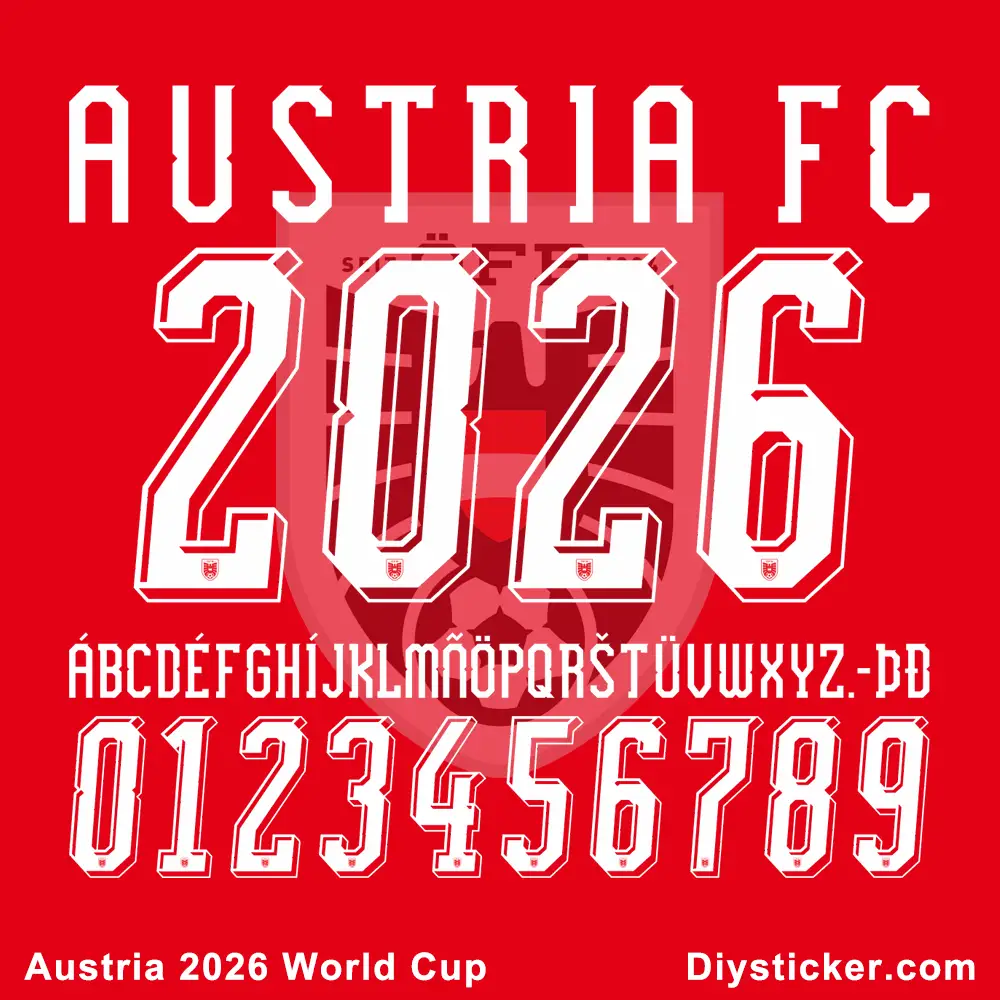
Introducing the exclusive, first-to-market official font for the Austria National Team’s 2026 FIFA World Cup campaign. This is the precise typeface that will adorn the jerseys of the Austrian side on football’s biggest stage. As the sole source for this font, we offer designers and fans an unprecedented opportunity to create authentic projects ahead of the tournament.
Capture the modern and dynamic identity of the Austrian team with this meticulously crafted typeface. Designed for maximum impact and legibility, it embodies a fresh football aesthetic. Our complete digital package delivers all professional formats needed for everything from custom fan jerseys to official-looking graphics.
Exclusive First-Release Features:
Authentic 2026 Kit Font: The exact typography used for player names and numbers on the upcoming World Cup jerseys.